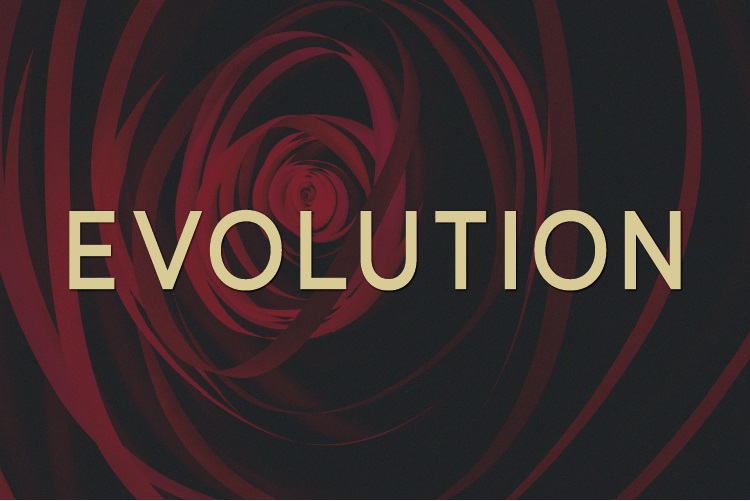
Evolution Font
Introducing Evolution, a modern, classy sans serif font. An incredibly flexible font, good for logos, weddings, invitations, quotes, ads, print, magazines and more.
Evolution Sans Serif Font